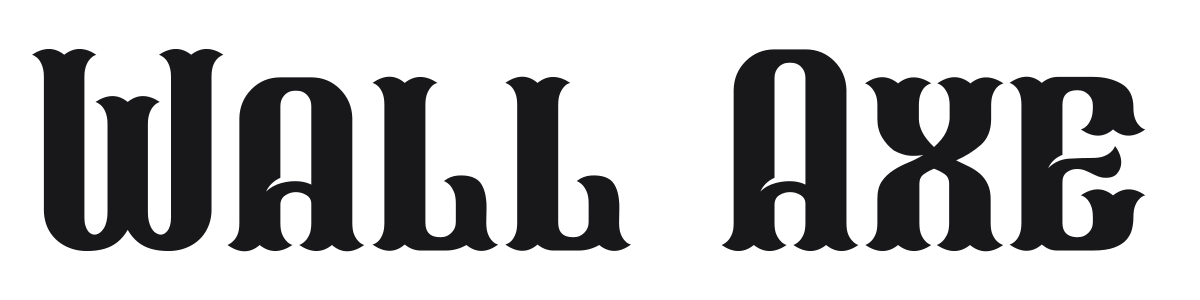
Wall Axe
Wall Axe is a bold condensed blackletter display font with decorative notches and axe-like cuts carved into the heavy strokes. It merges gothic structural roots with a raw, weapon-forged aesthetic that reads as powerful and intense. Strong for band logos, poster headlines, apparel graphics, and any project that needs a dark, commanding presence.